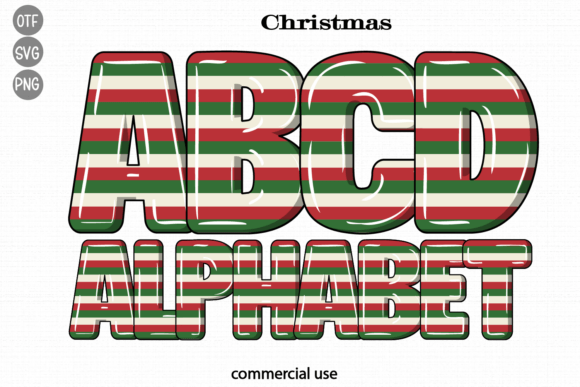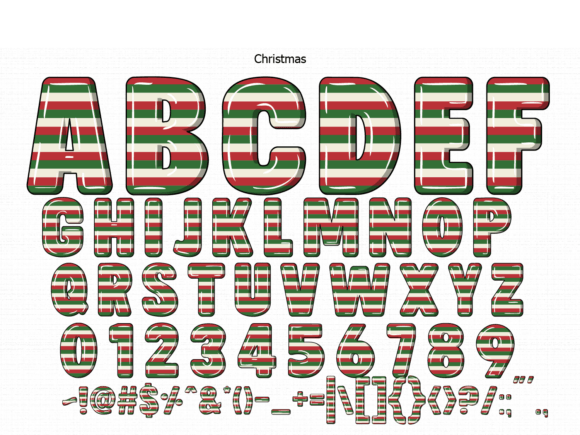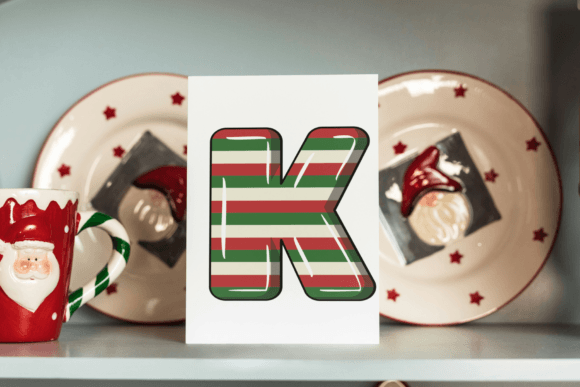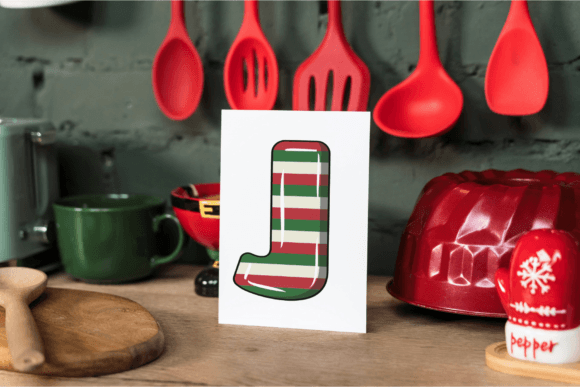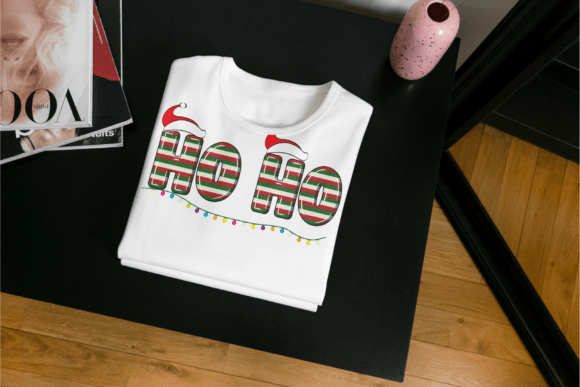
Deck the Halls with Cheer: The Magic of Christmas Font
As the holiday season approaches, I find myself browsing through design inspiration boards, searching for that perfect font to capture the essence of Christmas. It’s a moment we’ve all been there – scrolling through Pinterest, and suddenly, a font catches your eye. For me, it’s the Christmas Font, a bubbly, retro-inspired font that screams holiday cheer.
The Christmas Font is a fun, vibrant addition to any holiday design. Its playful letters are perfect for festive cards, posters, and decorations. Whether you’re a seasoned designer or a crafting enthusiast, this font is a valuable asset in your creative arsenal. Its compatibility with various design programs, including PhotoShop, Illustrator, and Silhouette, makes it a versatile choice for any project.
From its groovy vibe to its compatibility with cutting machines like Cricut, the Christmas Font is a must-have for any designer looking to add a touch of holiday magic to their designs.
Key Features of Christmas Font
- Unique Characteristics: Christmas Font features a festive and playful design, with intricate details and ornaments that evoke a sense of holiday cheer.
Designer Review: Christmas Font
Overall, I’d say the Christmas Font is a mixed bag. While it’s certainly festive and fun, there are a few things that make it feel a bit lacking.
- The font’s use of traditional Christmas colors is spot on, with a palette that’s both bold and inviting.
- The design itself is playful and whimsical, with a sense of movement that’s perfect for holiday graphics.
- The font is highly customizable, with a wide range of size and color options available.
- The font’s legibility can be a bit of a problem, especially when used for large blocks of text. The lines can get a bit messy and difficult to read.
- The font’s design feels a bit too “on the nose” – it’s very clearly a Christmas font, which can make it feel a bit cheesy or over-the-top in some contexts.
- The font doesn’t feel particularly original or unique, which can make it feel like it’s been done before.
Overall, I think the Christmas Font is a fun and festive addition to any holiday design project. However, it’s not without its limitations, and may not be the best choice for every application.
The Christmas Font is perfect for:
- Creating festive holiday cards and invitations.
- Designing Christmas-themed social media graphics.
- Adding a touch of holiday cheer to your website or blog.
To get the most out of the Christmas Font, try:
- Combining it with other festive elements, such as holly or snowflakes.
- Using it in bold or italic styles to add emphasis.
- Experimenting with different font sizes and colors to create a unique look